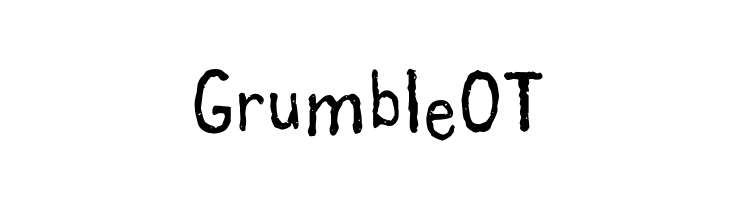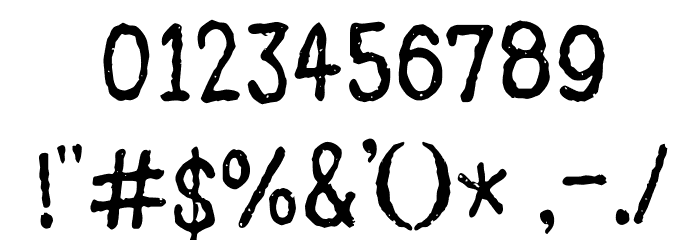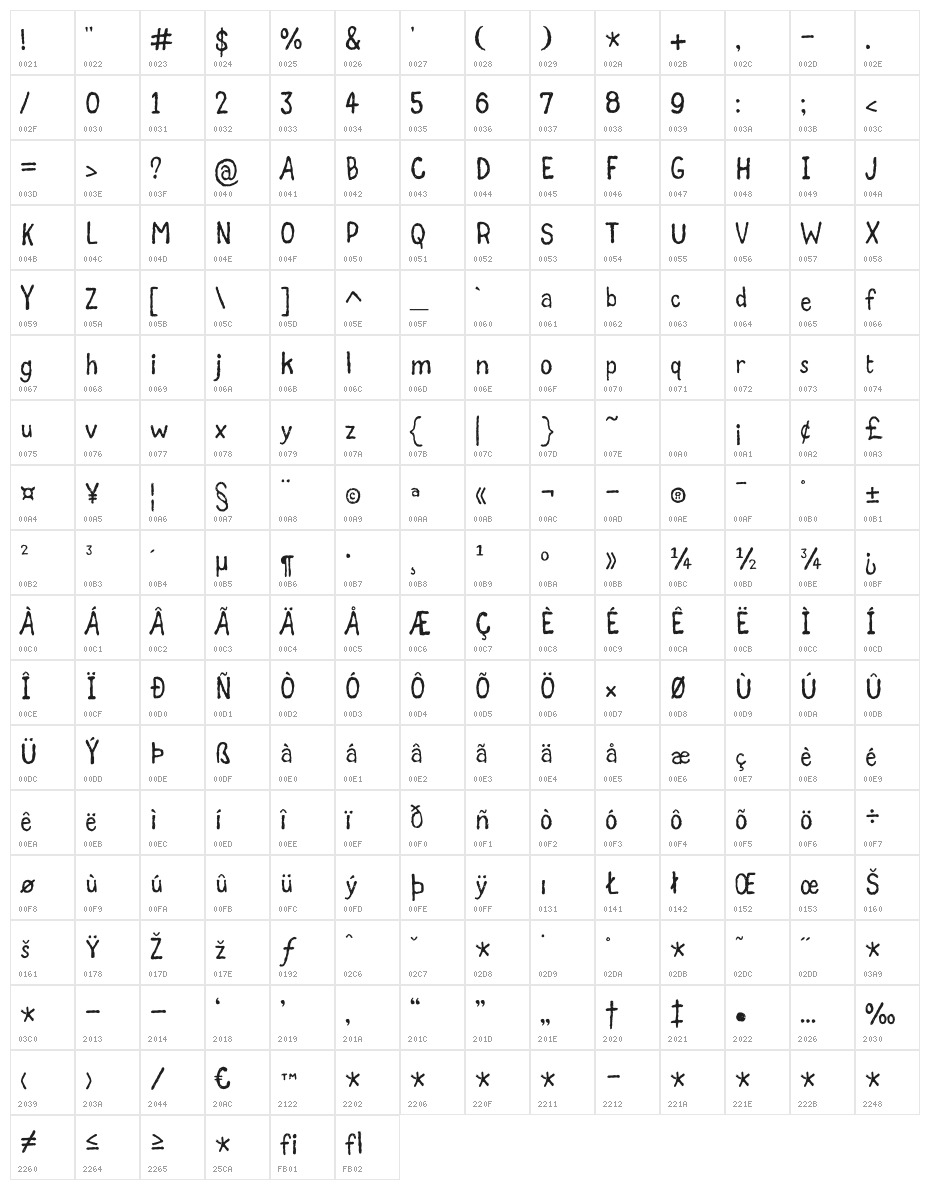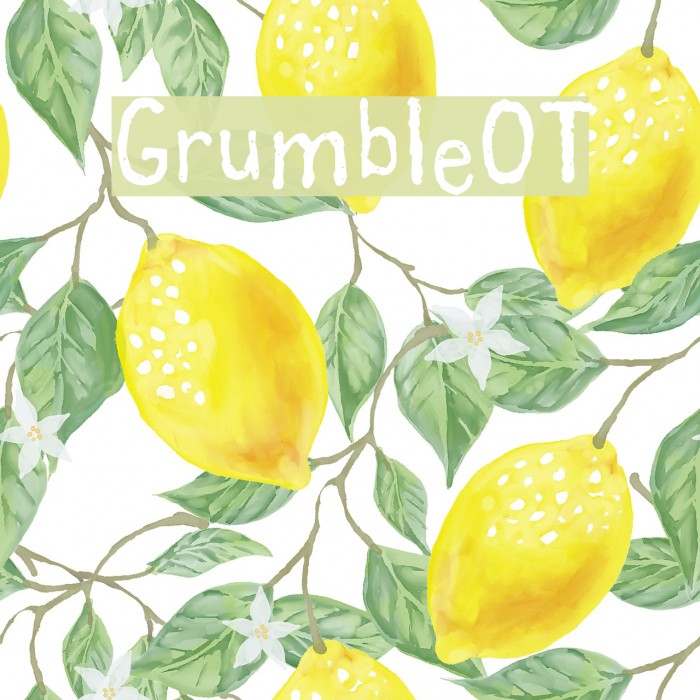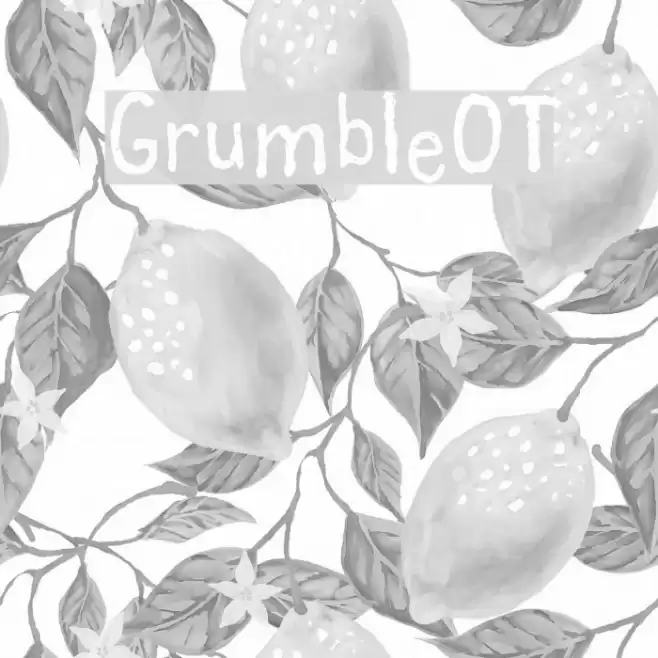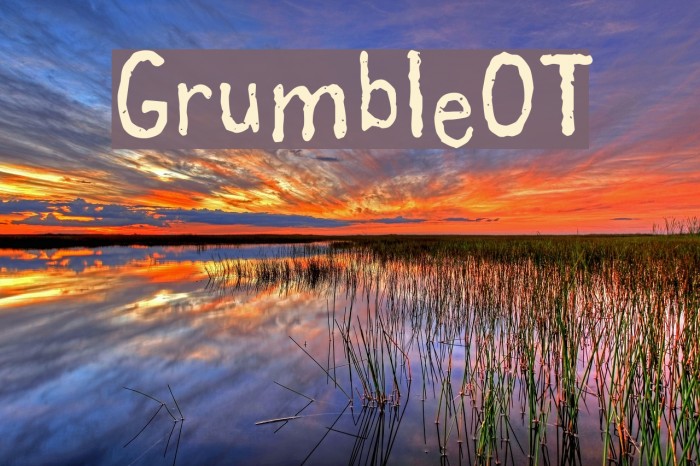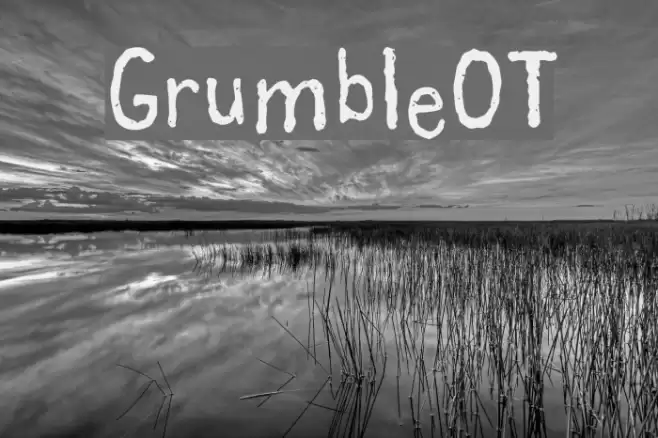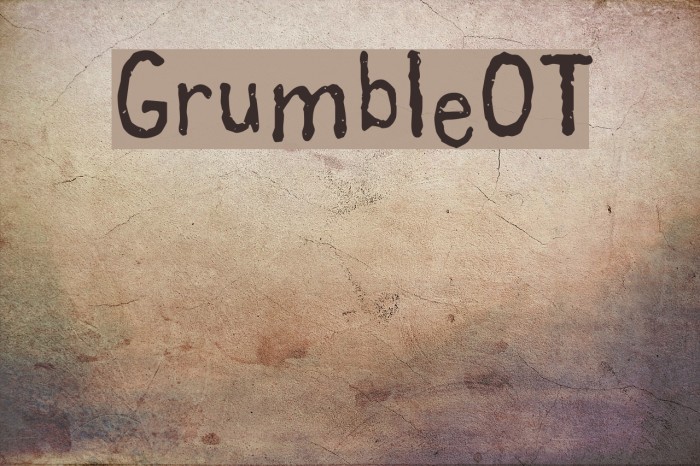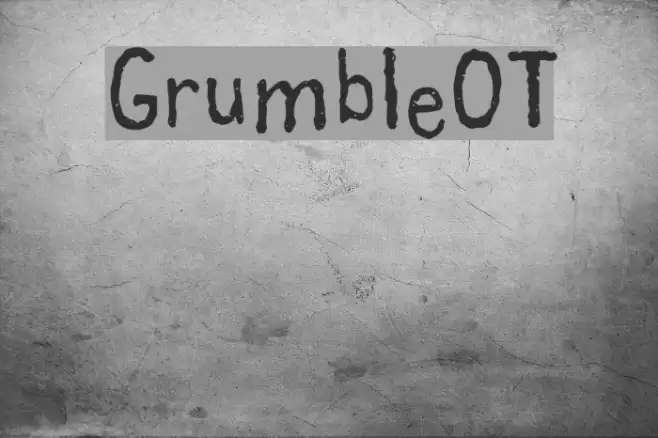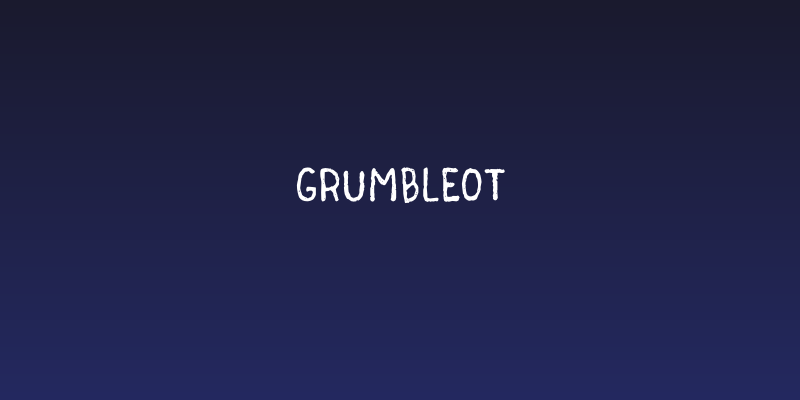
GrumbleOT Font
GrumbleOT Description
This font features a playful, hand-drawn style with a slightly rough texture, giving it a casual and organic feel. The characters are bold and rounded, with irregular edges that add to its informal appearance. The uppercase and lowercase letters maintain a consistent style, while the numerals and special characters complement the overall design. This font is ideal for projects that require a touch of whimsy and creativity, such as children's books, greeting cards, or playful branding materials.
| Proposed Projects | Ideal for children's books, greeting cards, playful branding, and creative projects. |